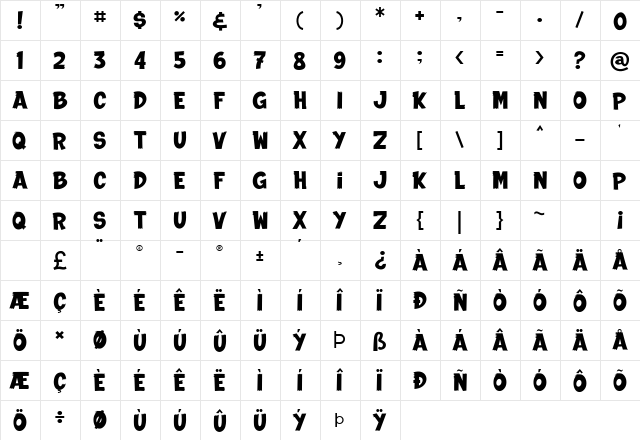
THE CREEPY HUNTER Regular
| Designer | Fachranheit 2019 |
Design Context for THE CREEPY HUNTER Typeface
THE CREEPY HUNTER leans into the macabre with letterforms designed to disturb and intrigue in equal measure.
Perfect for anything that needs to unsettle — game titles, horror branding, and macabre invitations.
Font Pairing: Pair with a clean neutral sans-serif for body copy to let THE CREEPY HUNTER's character lead without overwhelming the composition.
Pro Tip: Use THE CREEPY HUNTER at larger display sizes for maximum impact. Consider generous tracking to let the disturbing character of each letterform breathe.